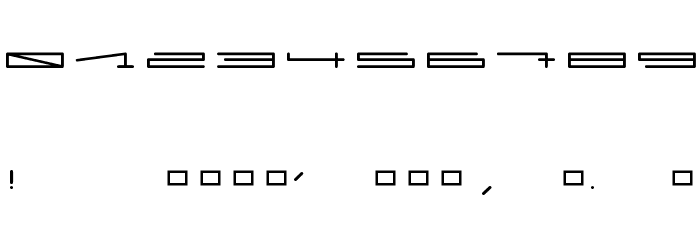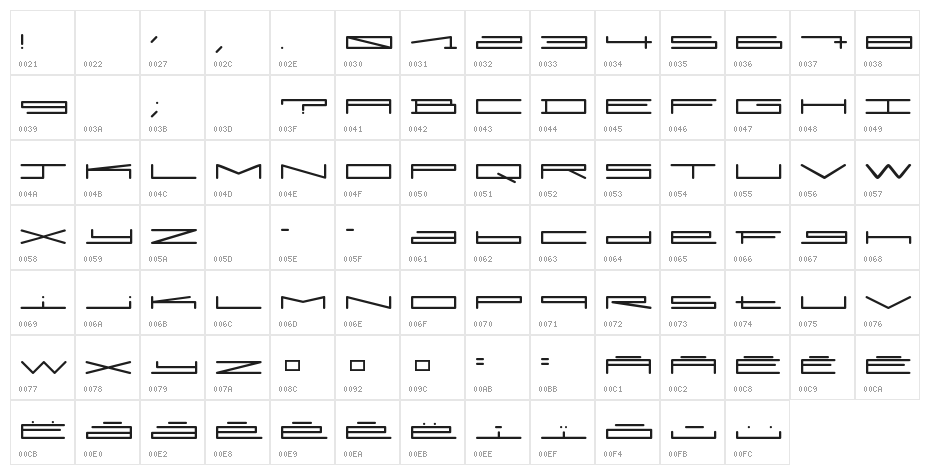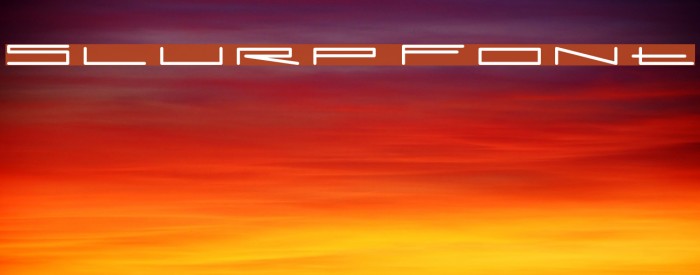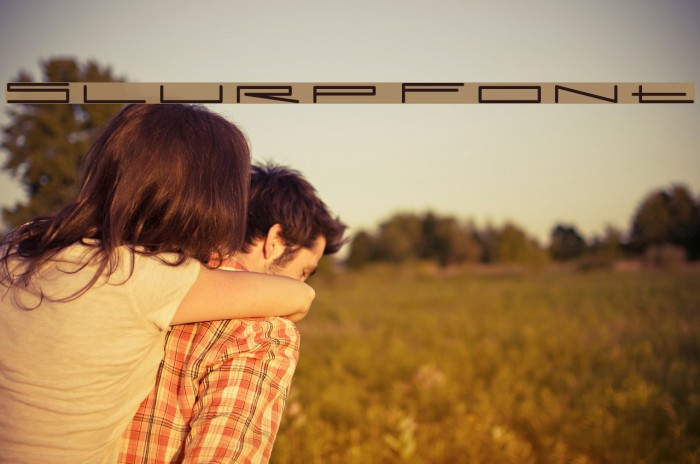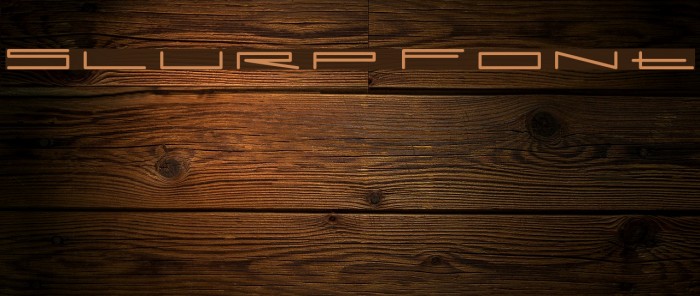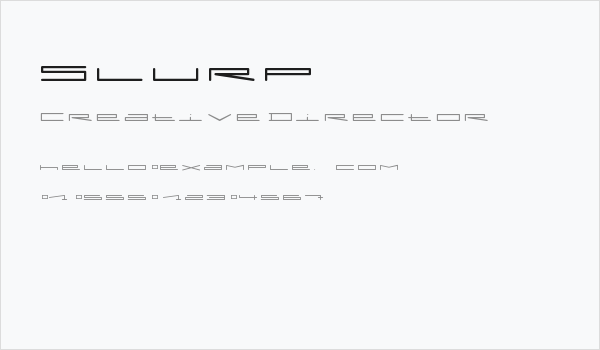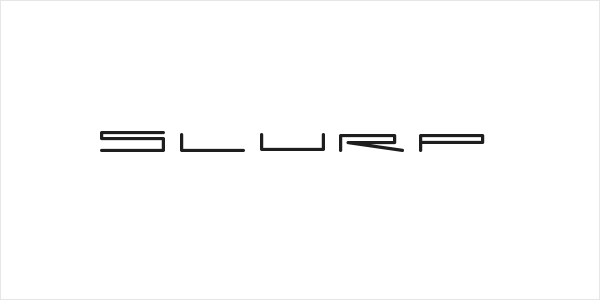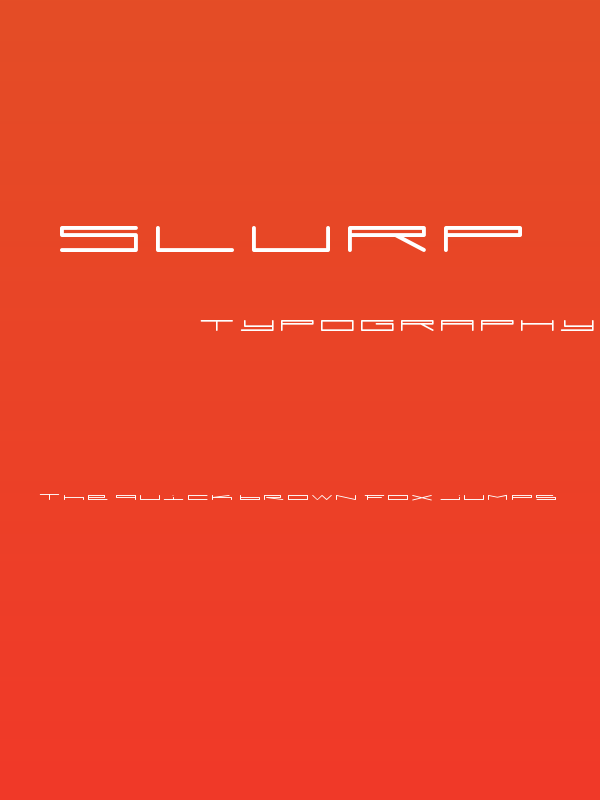
Slurp Font
Slurp Description
This font features a futuristic and geometric design, characterized by its angular and linear elements. The uppercase and lowercase letters exhibit a consistent style, with sharp edges and a sleek, modern appearance. The numerals and special characters maintain this aesthetic, providing a cohesive look across all glyphs. The font's unique structure makes it stand out, with a distinct emphasis on horizontal and vertical lines, creating a sense of movement and dynamism. Its minimalistic yet bold design is ideal for projects that require a modern and cutting-edge feel.
| Proposed Projects | Ideal for sci-fi themed projects, technology branding, modern posters, and innovative product packaging. |